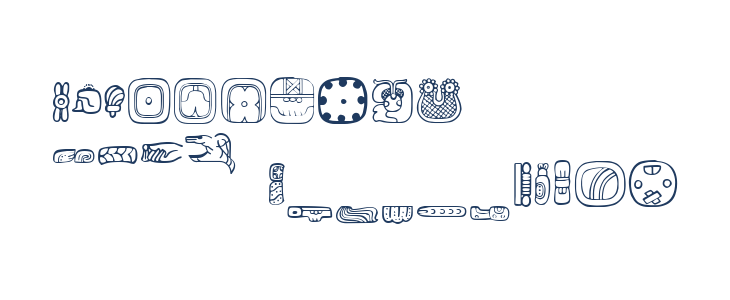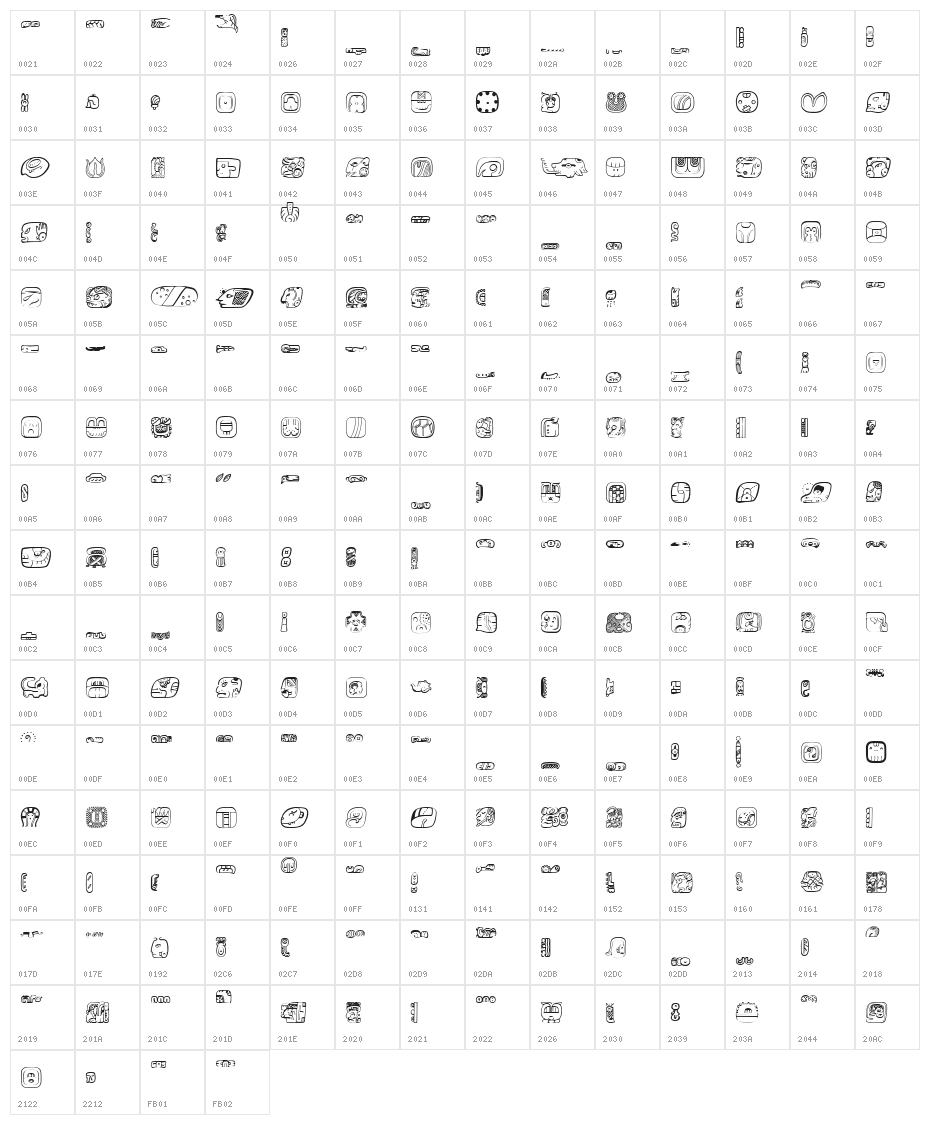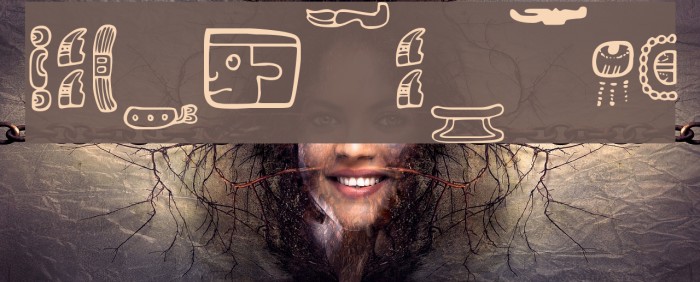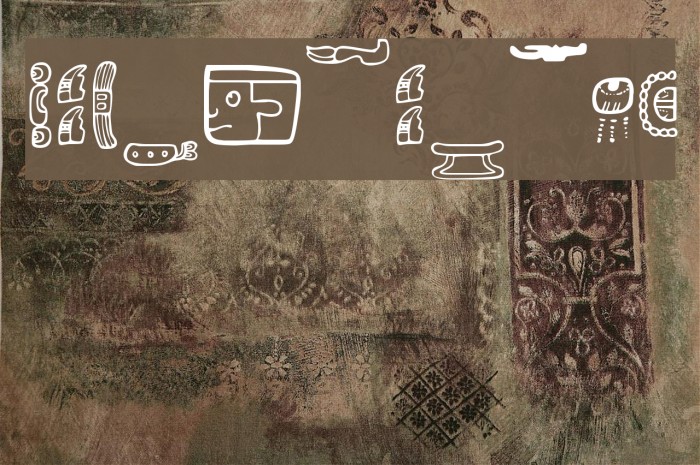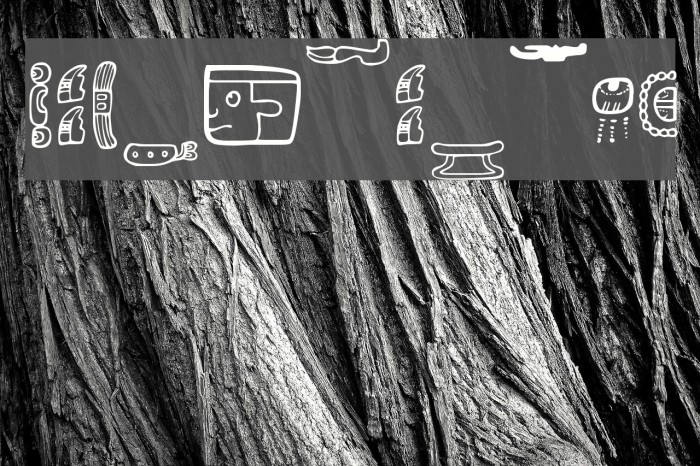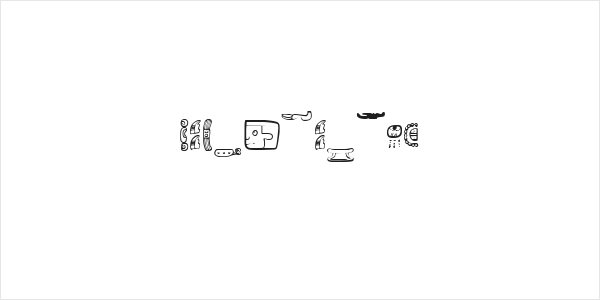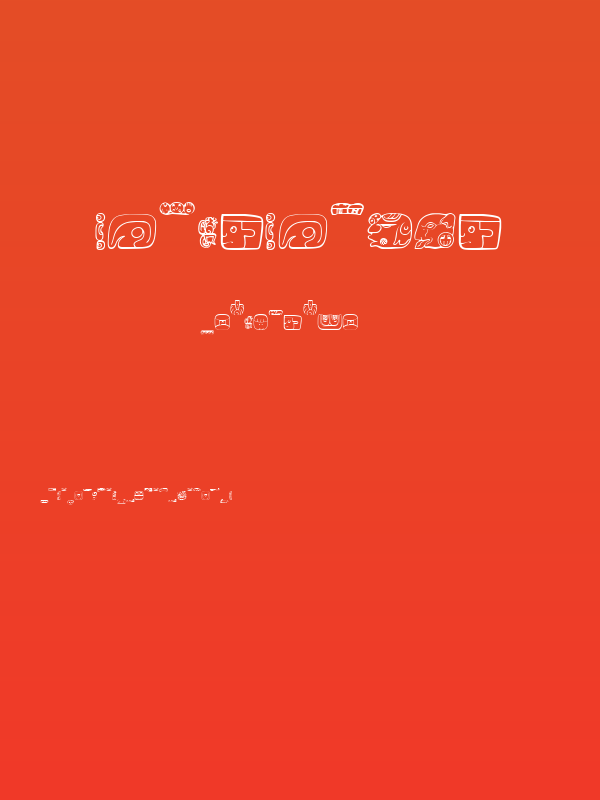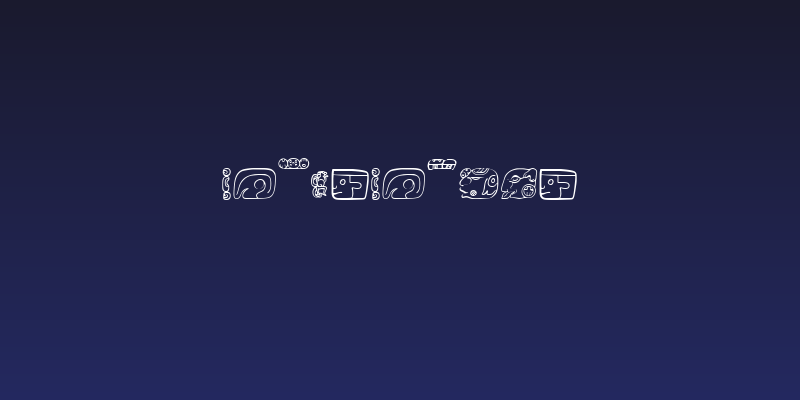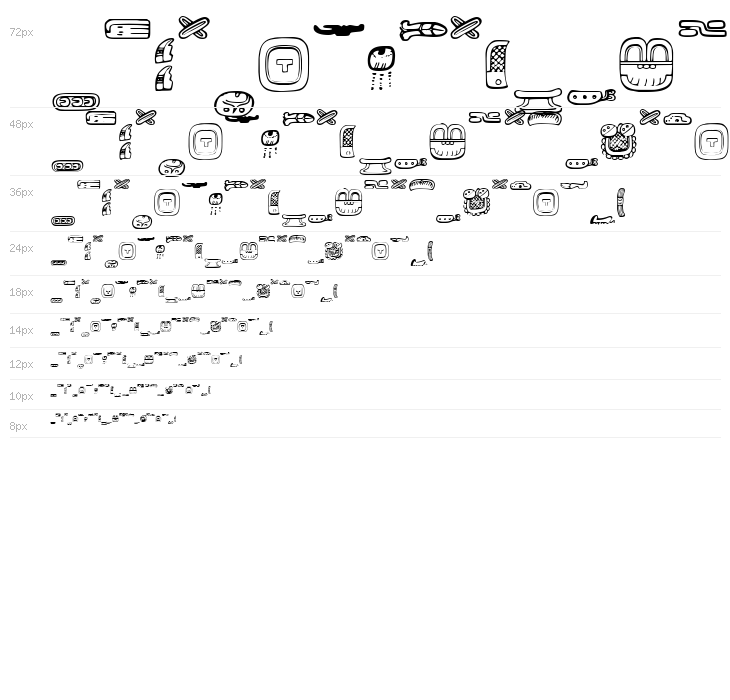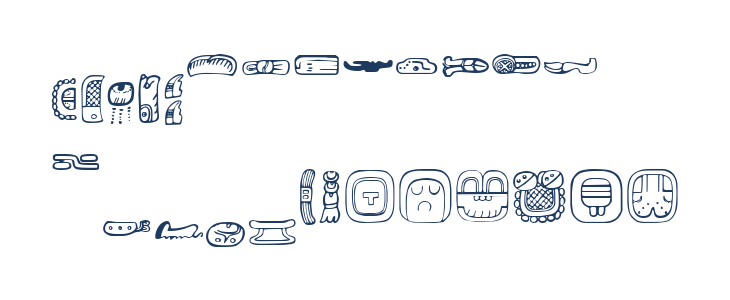
MesoAmerica Font
MesoAmerica Description
Highly decorative and intricate glyph-based script inspired by ancient Mesoamerican writing, featuring complex pictorial symbols and detailed line work with organic, rounded forms.
| Overall Style | Decorative, Historical, Pictographic |
| Use Case | Logos, Posters, Educational, Themed Events |
| Proposed Projects | Historical recreations, educational materials, museum displays, themed posters, cultural branding. |